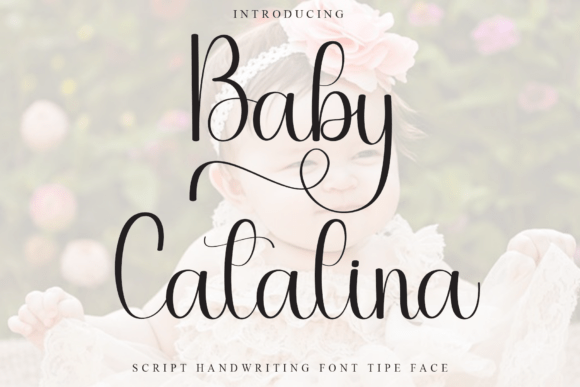
Baby Catalina Font: The Perfect Choice for Creative and Friendly Designs
Are you looking for a font that can add a touch of warmth and friendliness to your designs? Look no further than the Baby Catalina font. This casual and creative font is perfect for personal projects, invitations, social media graphics, and more. In this article, we’ll explore the features and benefits of the Baby Catalina font and why it’s a great choice for designers and crafters.
A Casual and Creative Font with a Playful Touch
Baby Catalina is a font that exudes warmth and friendliness. Its round, playful strokes create a relaxed and approachable feel that’s perfect for designs that need a personal touch. The font’s charming, hand-drawn aesthetic adds a fun and unique touch to any design, making it stand out from more traditional fonts.
Whether you’re designing a birthday invitation, a social media graphic, or a personal project, Baby Catalina is the perfect choice. The font’s casual and creative vibe makes it easy to pair with other fonts and design elements, allowing you to create a unique and eye-catching design.
Baby Catalina is a font that’s perfect for designers and crafters who want to add a personal touch to their designs. The font’s casual and creative vibe makes it easy to use for a variety of projects, from personal invitations and social media graphics to craft projects and DIY designs.
Whether you’re a professional designer or a crafter who loves to create unique and personalized designs, Baby Catalina is a great choice. The font’s easy-to-use characters and symbols make it simple to create beautiful and eye-catching designs that will stand out from the crowd.
Tips for Using Baby Catalina in Your Designs
Here are a few tips for using Baby Catalina in your designs:
- Pair Baby Catalina with other fonts and design elements to create a unique and eye-catching design.
- Use the font’s charming, hand-drawn aesthetic to add a personal touch to your designs.
- Don’t be afraid to get creative and try new things – Baby Catalina is a versatile font that’s perfect for experimenting with different design ideas.
In conclusion, Baby Catalina is a casual and creative font that’s perfect for designers and crafters who want to add a touch of warmth and friendliness to their designs. The font’s round, playful strokes and charming, hand-drawn aesthetic make it easy to use and versatile enough for a variety of projects.
With its standard PUA Encoded glyphs and easy-to-use characters and symbols, Baby Catalina is a great choice for anyone who wants to create beautiful and eye-catching designs. So why not give it a try and see how Baby Catalina can add a personal touch to your next design project?